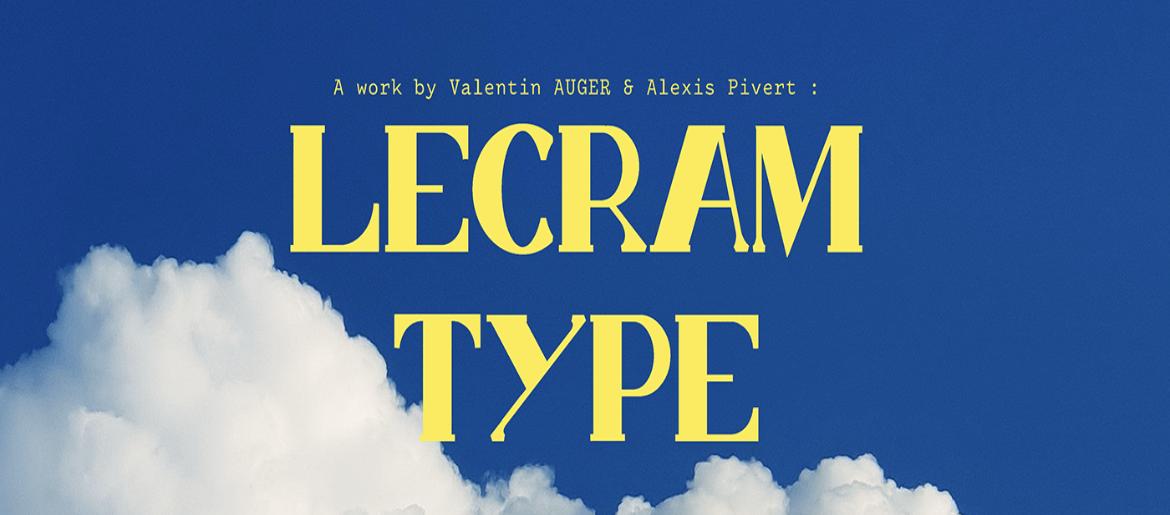
Lecram Font
Lecram Type by Valentin Auger is a free work-in-progress display serif typeface with a raw, earnest quality that comes from being genuinely made rather than manufactured. Its bold letterforms carry a self-taught confidence — clean in its ambitions, honest about its origins — and the result is a typeface with a distinctive visual personality that stands apart from the slickness of commercially produced type. Currently featuring uppercase characters, it is already a compelling display choice for editorial headlines, poster work, and any project that benefits from type with a handmade, independent spirit. Free for personal use.